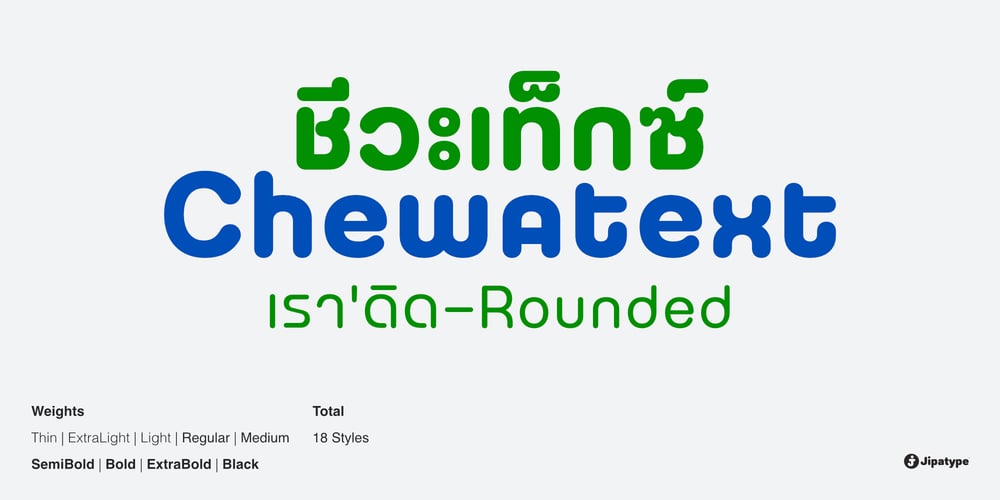
Chewatext Rounded Font Family was designed by Anupap Jaichumnan and published by Jipatype. Chewatext Rounded contains 18 styles and family package options. Chewatext Rounded, developed from Chewatext, is a rounded sans-serif typeface that exudes minimalism and a geometric look. This versatile font family offers 18 styles, supporting Latin-1 and Thai Unicode characters. It is suitable for contemporary design projects, whether for various printed works or online and offline